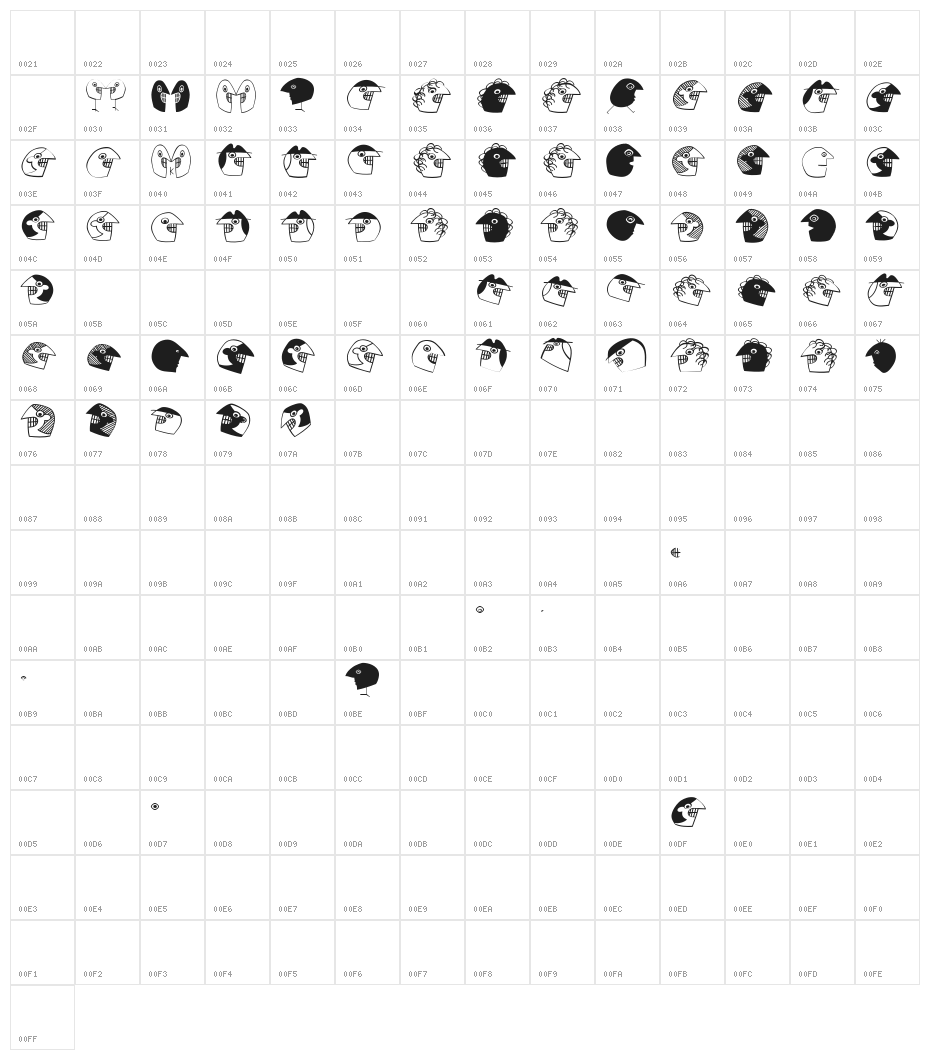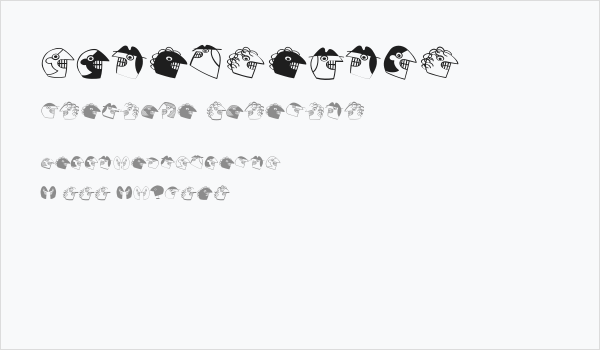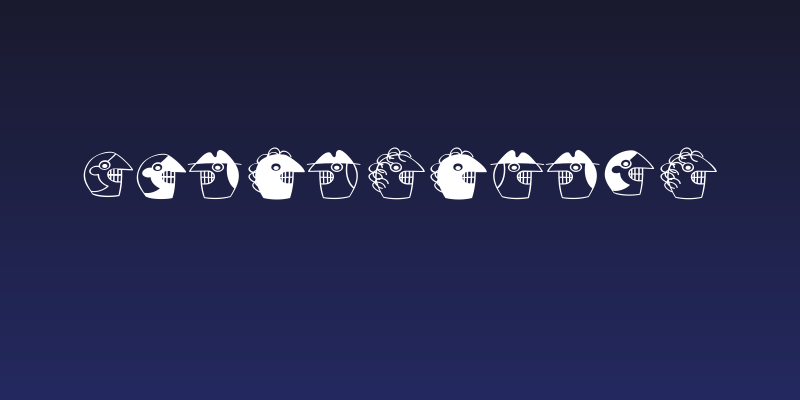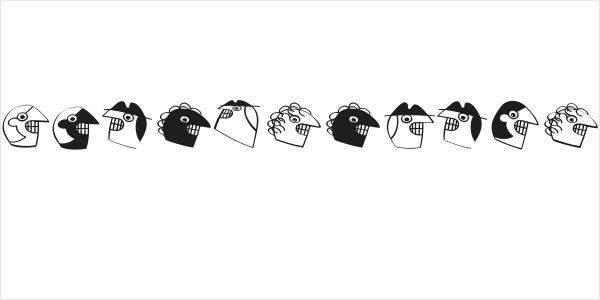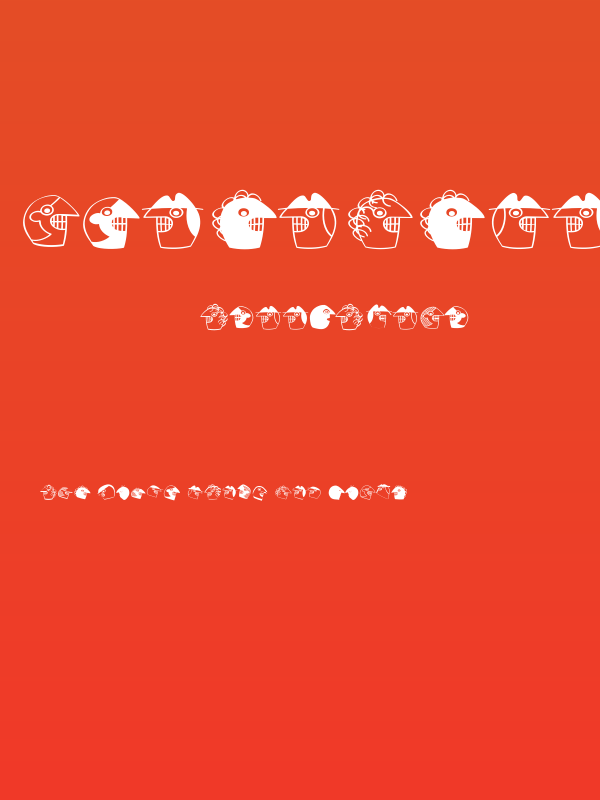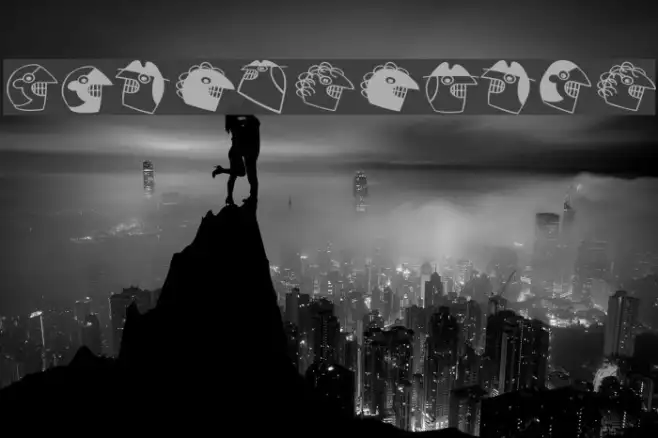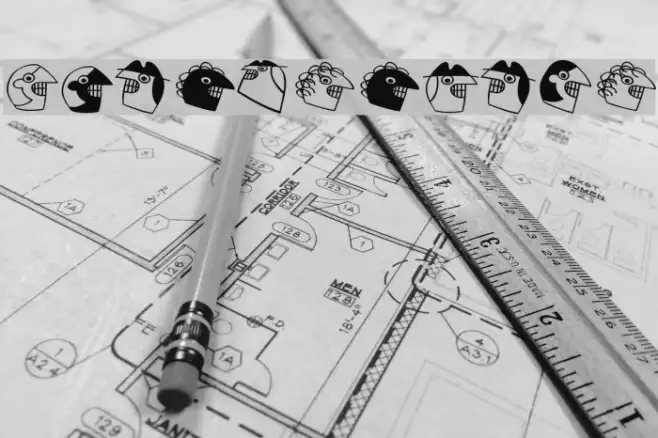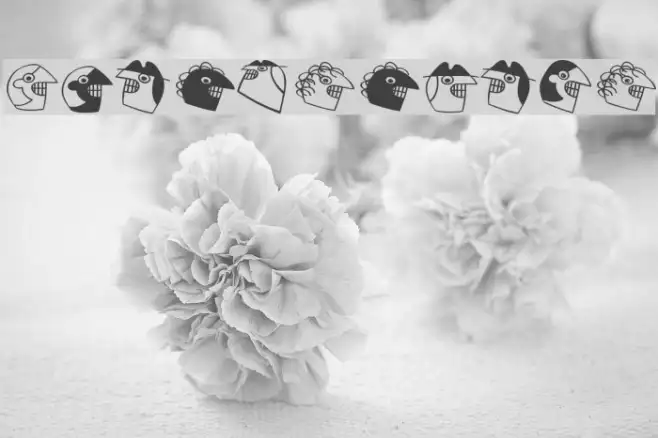
MKoepfeBold Font
MKoepfeBold Description
This font is a highly creative and artistic representation, featuring stylized human-like faces in place of traditional alphanumeric characters. Each character is uniquely designed with varying facial expressions, hairstyles, and accessories, creating a playful and whimsical appearance. The bold use of black and white contrasts enhances the visual impact, making it suitable for projects that require a distinctive and eye-catching design. The characters are consistent in their artistic theme, yet each one maintains individuality, offering a wide range of visual interest. This font is not intended for standard text but rather for decorative purposes where creativity and uniqueness are desired.
| Use Case | Logos, Posters, Artistic Designs |
| Proposed Projects | Ideal for artistic projects, creative posters, unique branding, and any design work that benefits from a playful and unconventional style. |